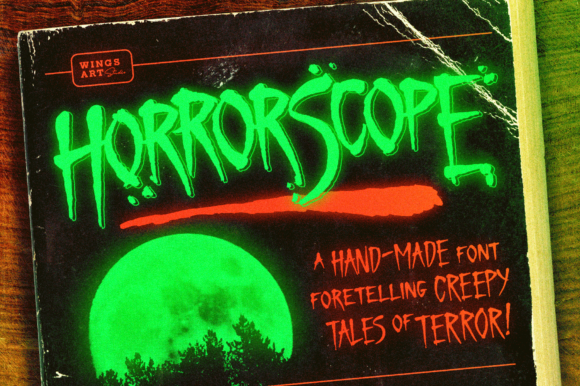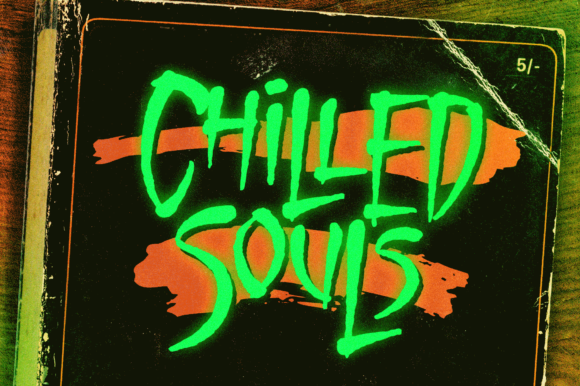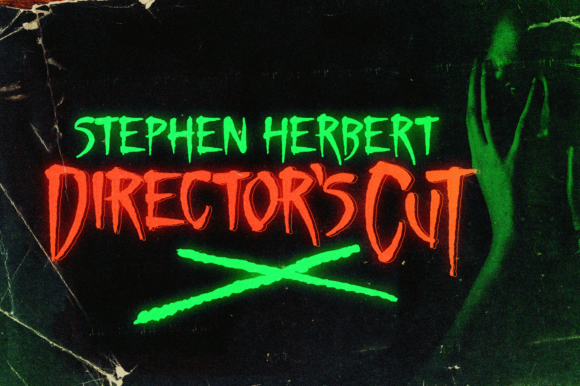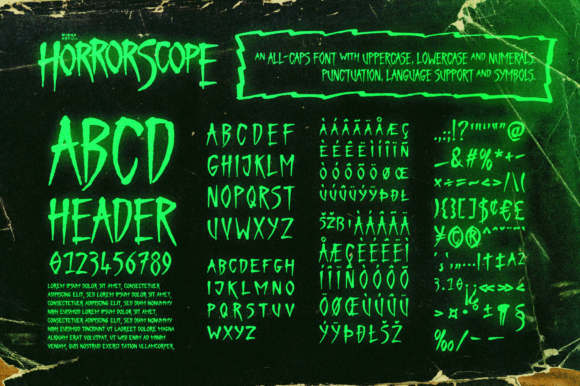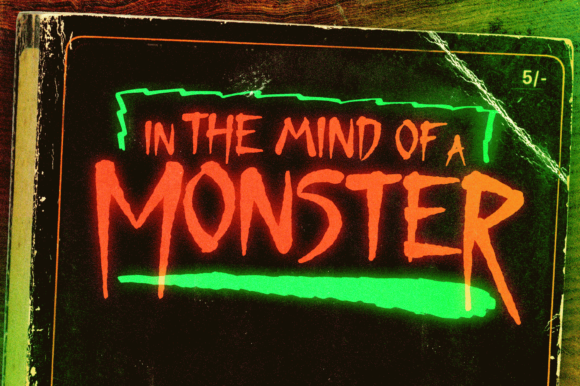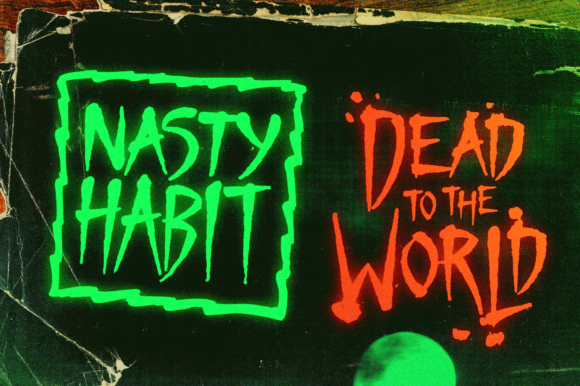
Horror Scope Font
Horror Scope is a scary looking and cool display font. It is suitable for Halloween branding project like logos, t-shirt printing, sport designs, and more. It will look outstanding in a wide range of contexts.